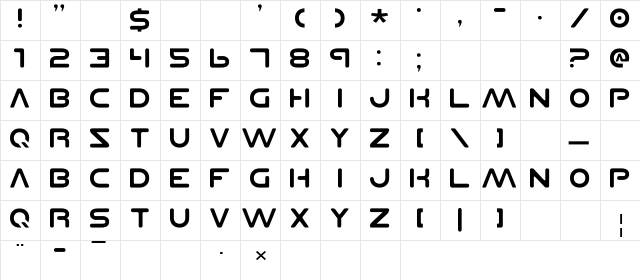
Planet N Regular Font Preview
Planet N Regular
Planet N Regular Font Details
| Foundry | Monotype Typography |
| Designer | Monotype Type Drawing Office - Robin Nicholas, Patricia Saunders 1982 |
Design Context for Planet N Typeface
Planet N offers clean, dependable letterforms without strong stylistic allegiance, making it a practical choice for designers who need flexibility.